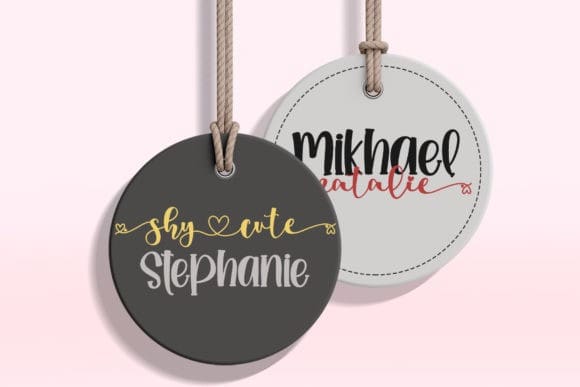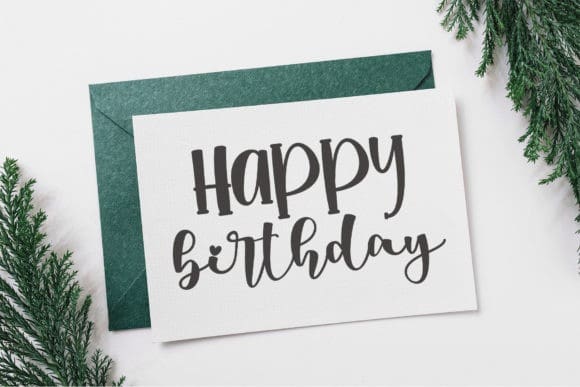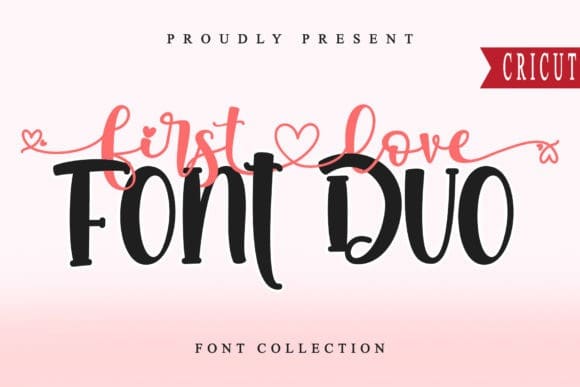
First Love FD Font Duo
First Love FD Font Duo, is an elegant duo-styled handwritten font. Simple and easy to use, this font will be very beautiful if you mix it with your various craft designs.